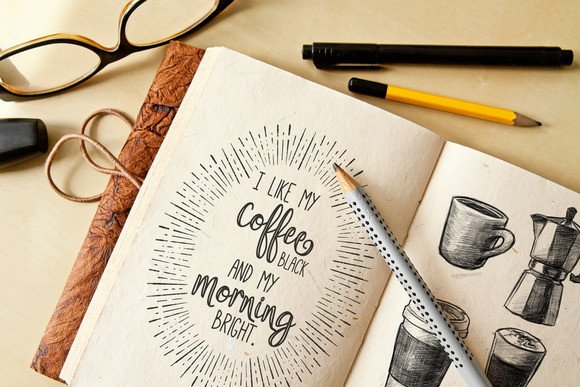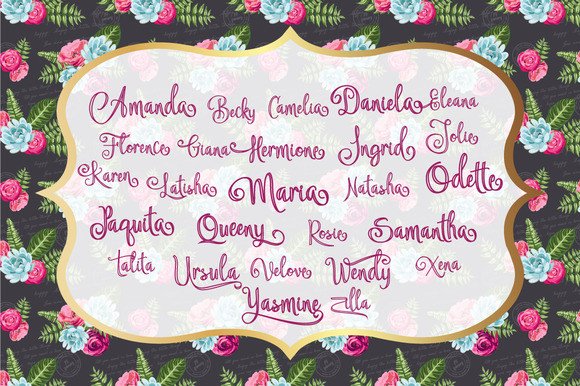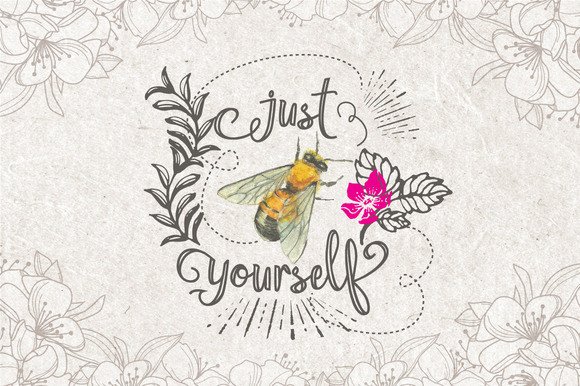
Aysheea Font: Elevate Your Designs with a Unique Script Font
Are you looking for a font that combines traditional calligraphy appeal with modern approaches? Look no further than Aysheea Font. This stunning script font is designed to enhance any design, making it a must-have for designers and crafters alike. In this article, we’ll dive into the world of Aysheea Font, exploring its features, benefits, and uses.
What is Aysheea Font?
Aysheea Font is a beautiful script font that blends traditional calligraphy techniques with modern design elements. The result is a truly unique font that stands out from the crowd. With its elegant strokes and flowing lines, Aysheea Font is perfect for adding a touch of sophistication to any design.
Key Features of Aysheea Font
- Traditional Calligraphy Appeal: Aysheea Font draws inspiration from traditional calligraphy, giving it a classic and timeless feel.
- Modern Twists: The font incorporates modern design elements, making it fresh and unique.
- Unique Script Style: Aysheea Font features a distinctive script style that’s perfect for making a statement.
- Highly Versatile: The font can be used for a wide range of design projects, from logos and branding to invitations and social media graphics.
Benefits of Using Aysheea Font
So why choose Aysheea Font for your design projects? Here are just a few benefits:
- Adds Sophistication: Aysheea Font adds a touch of elegance and sophistication to any design.
- Enhances Brand Identity: The font’s unique style makes it perfect for creating a distinctive brand identity.
- Easy to Read: Despite its ornate style, Aysheea Font is highly legible, making it perfect for body text and headings.
- Customizable: The font can be easily customized to fit your design needs.
Uses of Aysheea Font
Aysheea Font is incredibly versatile, making it suitable for a wide range of design projects. Here are some ideas to get you started:
- Logos and Branding: Use Aysheea Font to create a unique and memorable logo for your business.
- Invitations and Stationery: Add a touch of elegance to your invitations, business cards, and letterheads.
- Social Media Graphics: Use Aysheea Font to create eye-catching social media graphics, such as quotes and promotions.
- Packaging Design: Add a touch of sophistication to your product packaging with Aysheea Font.
Tips for Using Aysheea Font
Here are some tips for getting the most out of Aysheea Font:
- Pair with a Simple Font: Pair Aysheea Font with a simple font, such as Arial or Helvetica, to create visual interest.
- Use for Headings: Use Aysheea Font for headings and titles to add a touch of elegance.
Aysheea Font is a stunning script font that combines traditional calligraphy appeal with modern approaches. With its unique style, versatility, and ease of use, it’s a must-have for designers and crafters alike. Whether you’re looking to add a touch of sophistication to your designs or create a distinctive brand identity, Aysheea Font is the perfect choice. So why wait? Download Aysheea Font today and take your designs to the next level!